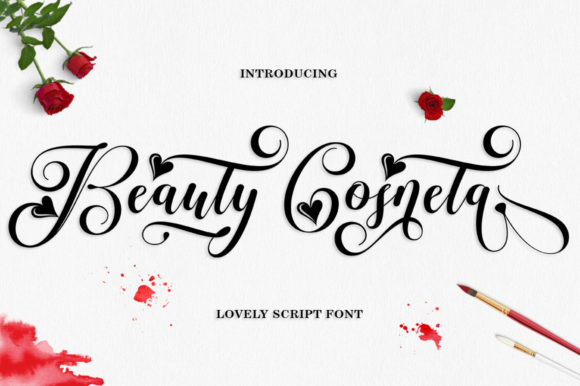
Indulge in the allure of Beauty Cosneta, a captivating script font that will ignite your designs with a touch of romance and sophistication.
Crafted with meticulous precision, this enchanting font exudes an air of elegance that is sure to captivate your audience. Its intricate curves and flowing lines will evoke a sense of wonder and inspire creativity.
Whether you're penning heartfelt love letters, announcing the most joyous of occasions with wedding invitations, or embarking on any creative endeavor, Beauty Cosneta will seamlessly elevate your vision.
Its effortless charm transforms ordinary words into extraordinary expressions, leaving an unforgettable mark on all who behold them. Embrace the allure of this captivating font and witness the magic it weaves into your designs.
With Beauty Cosneta, your every creation will shine with a unique and unforgettable brilliance. Let this romantic script font awaken the dreamer within you and transport your designs to a realm of breathtaking beauty.